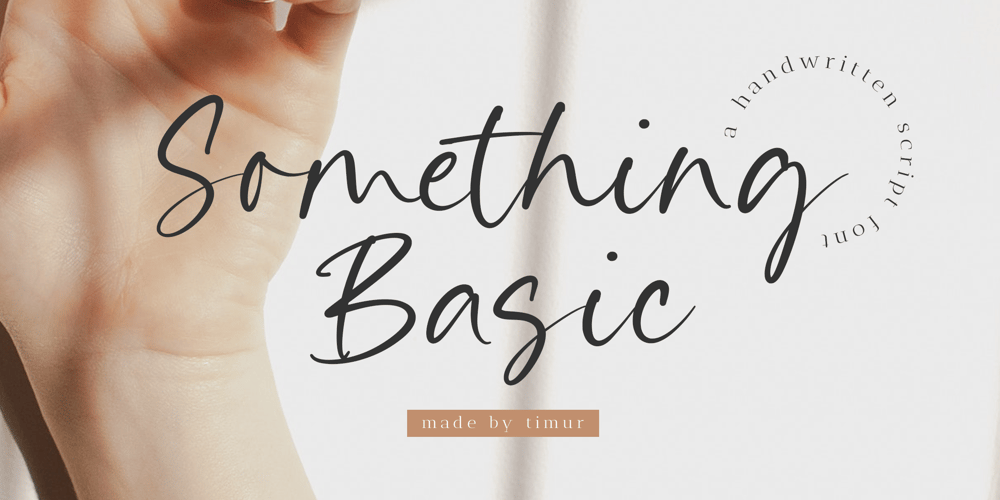
Something Basic
Something Basic font
Something Basic Font Family was designed by Wara Sigit Tri Pamungkas and published by Timurtype. Something Basic contains 1 styles and family package options. Introducing by Timur typeProudly Present, Something Basic A Handwritten FontSomething Basic is perfect for product packaging, branding project, megazine, social media, wedding, or just used to express words above the background.Something Basic also multilingual support.Enjoy the font.Thank you!